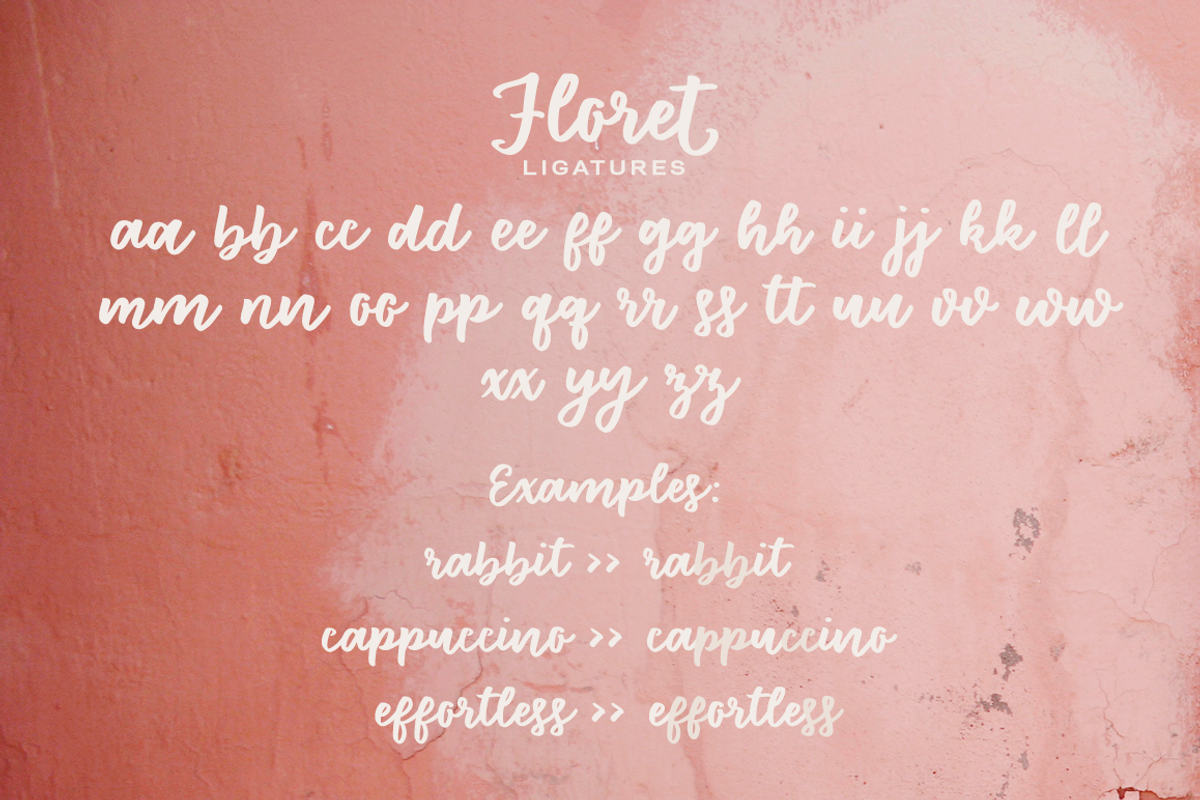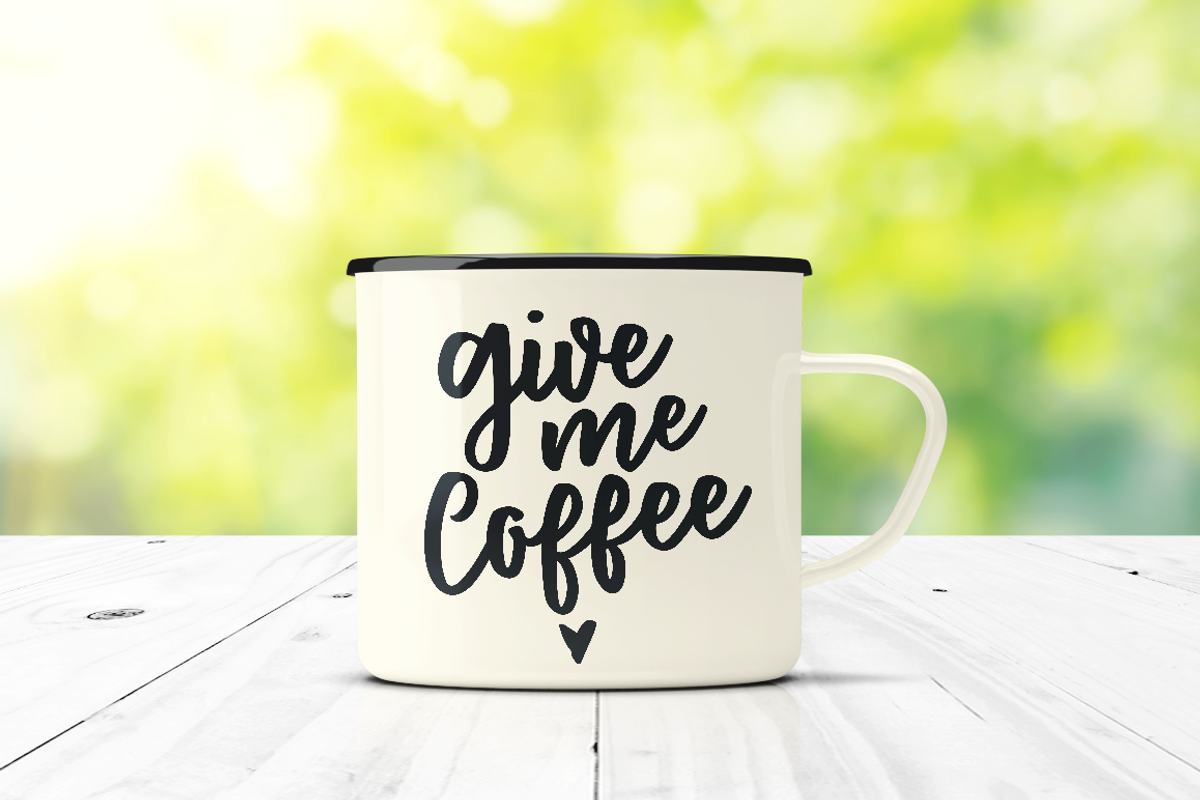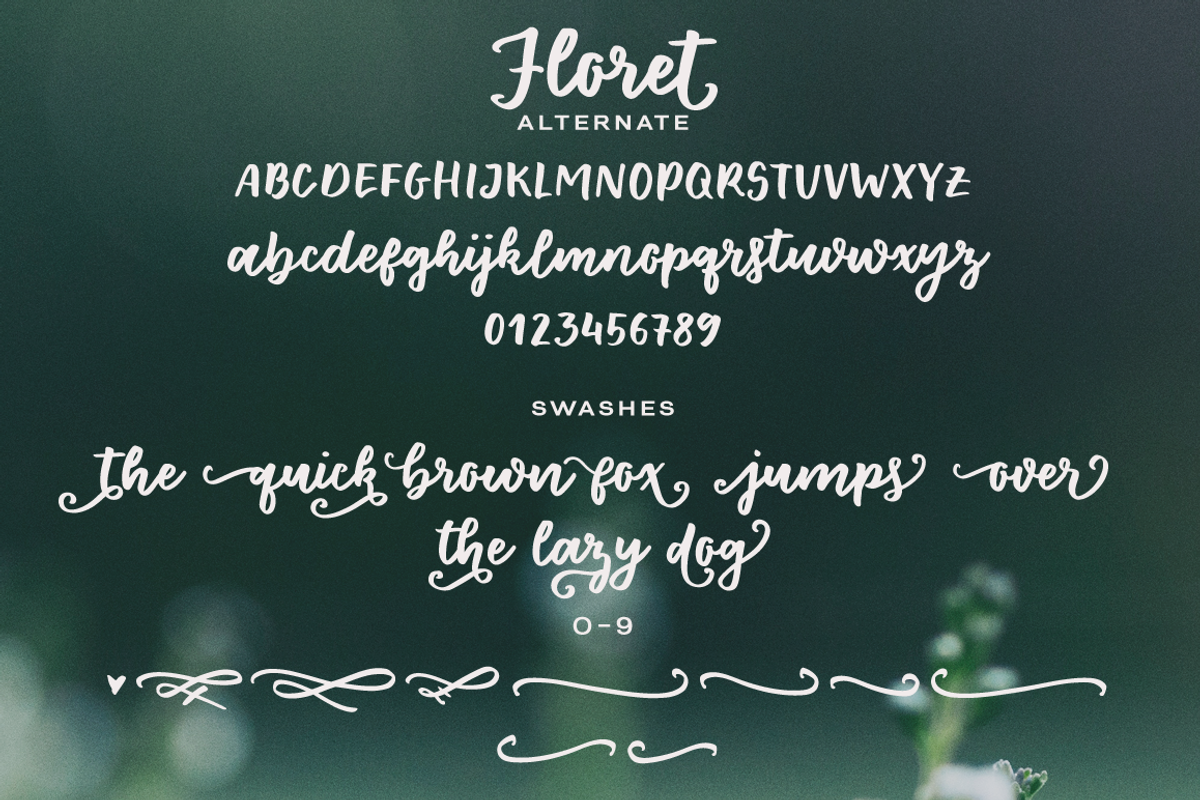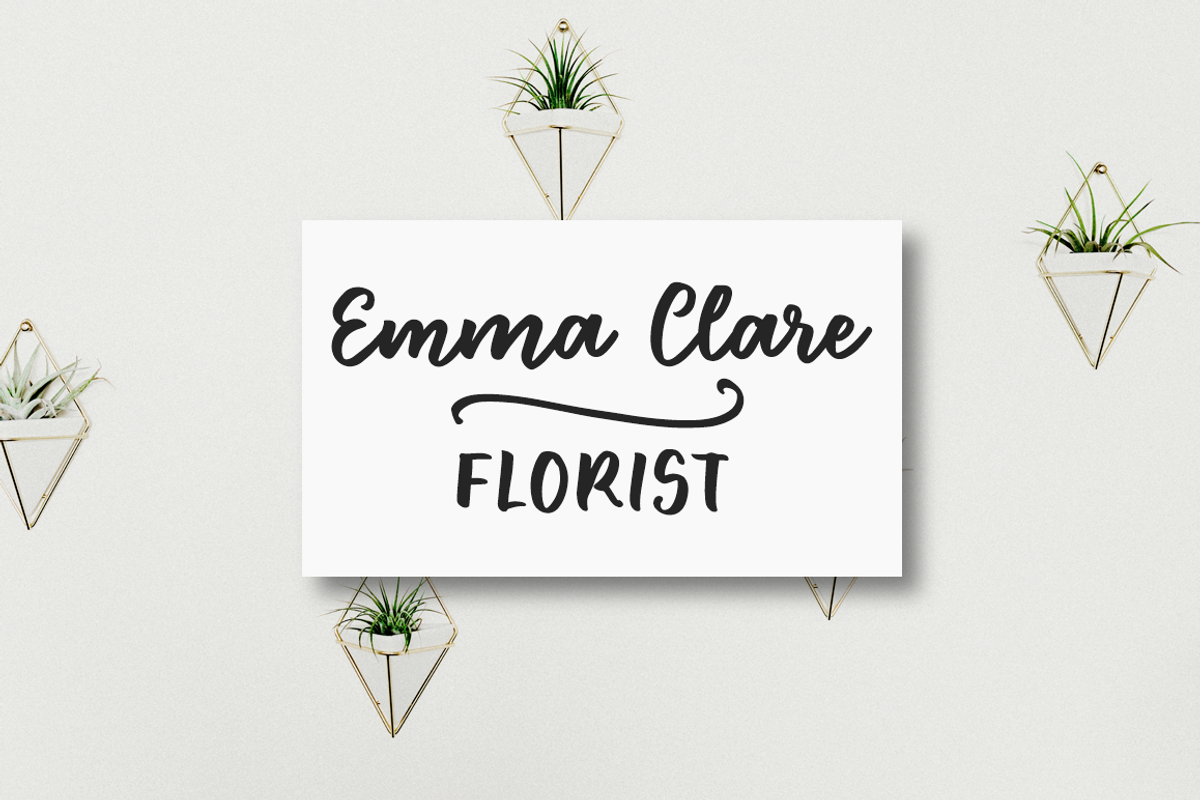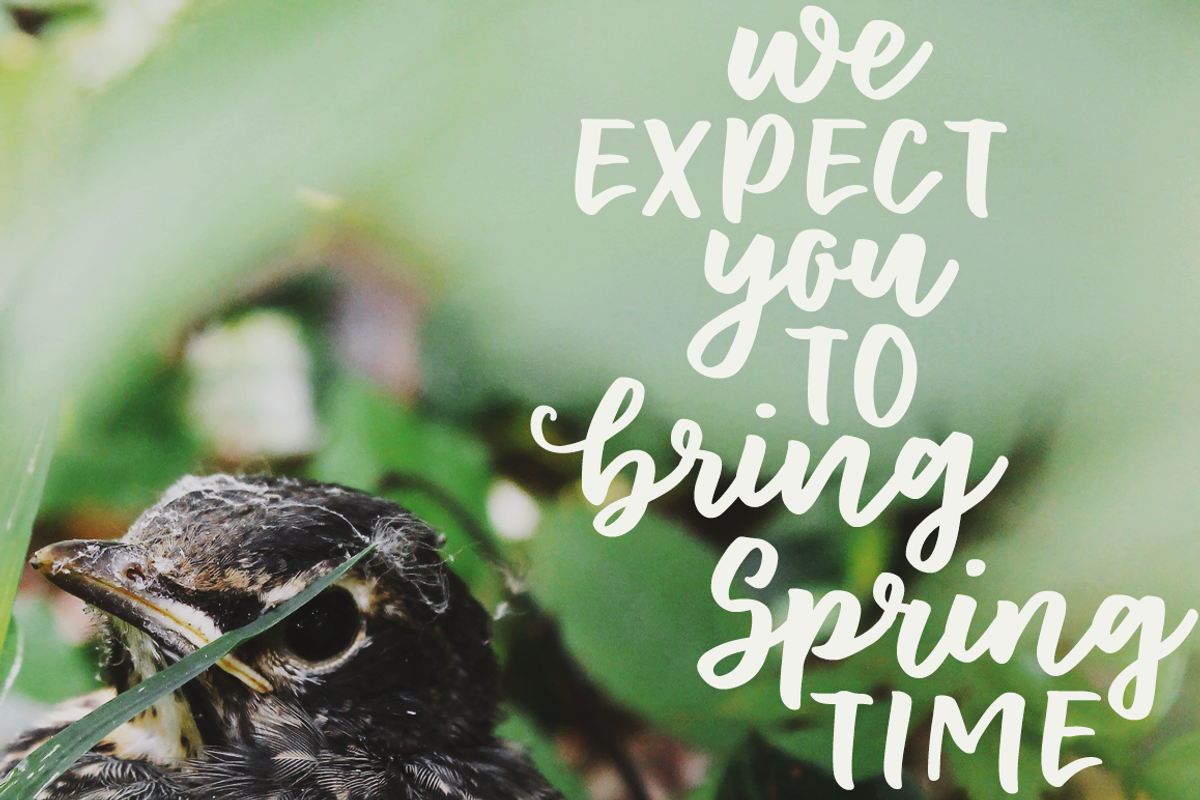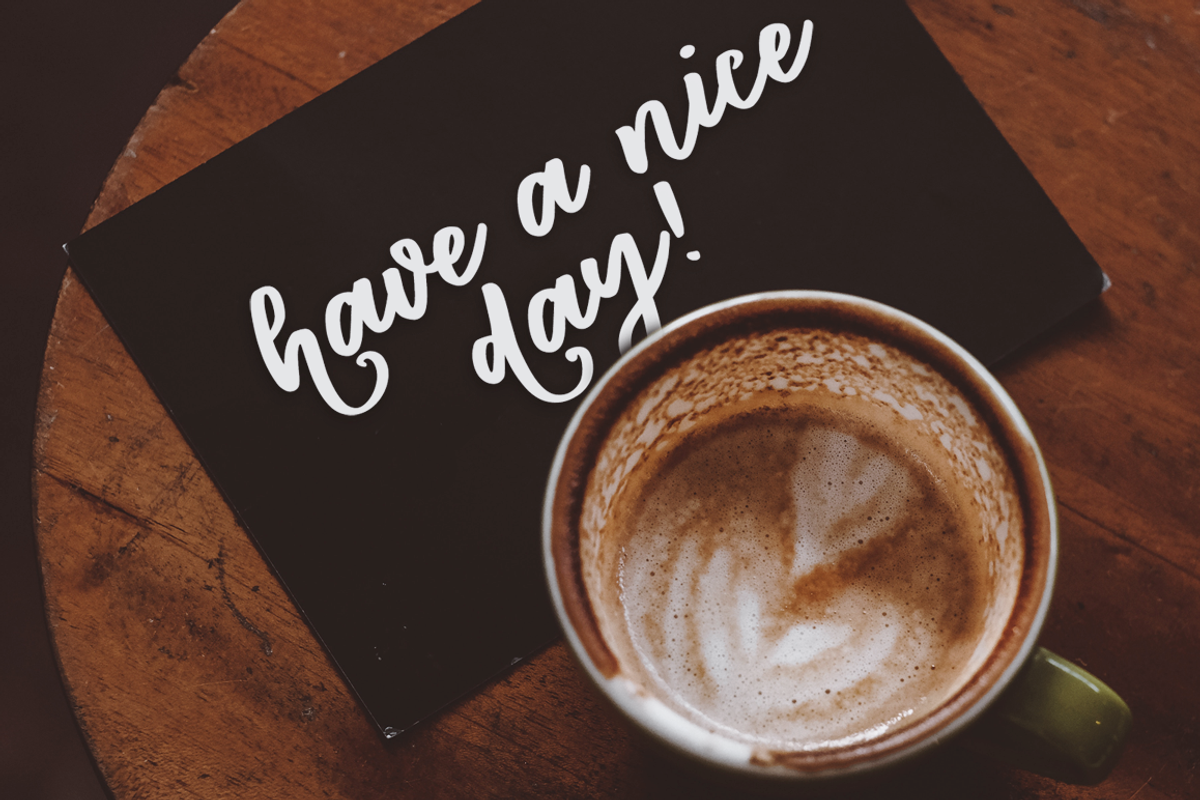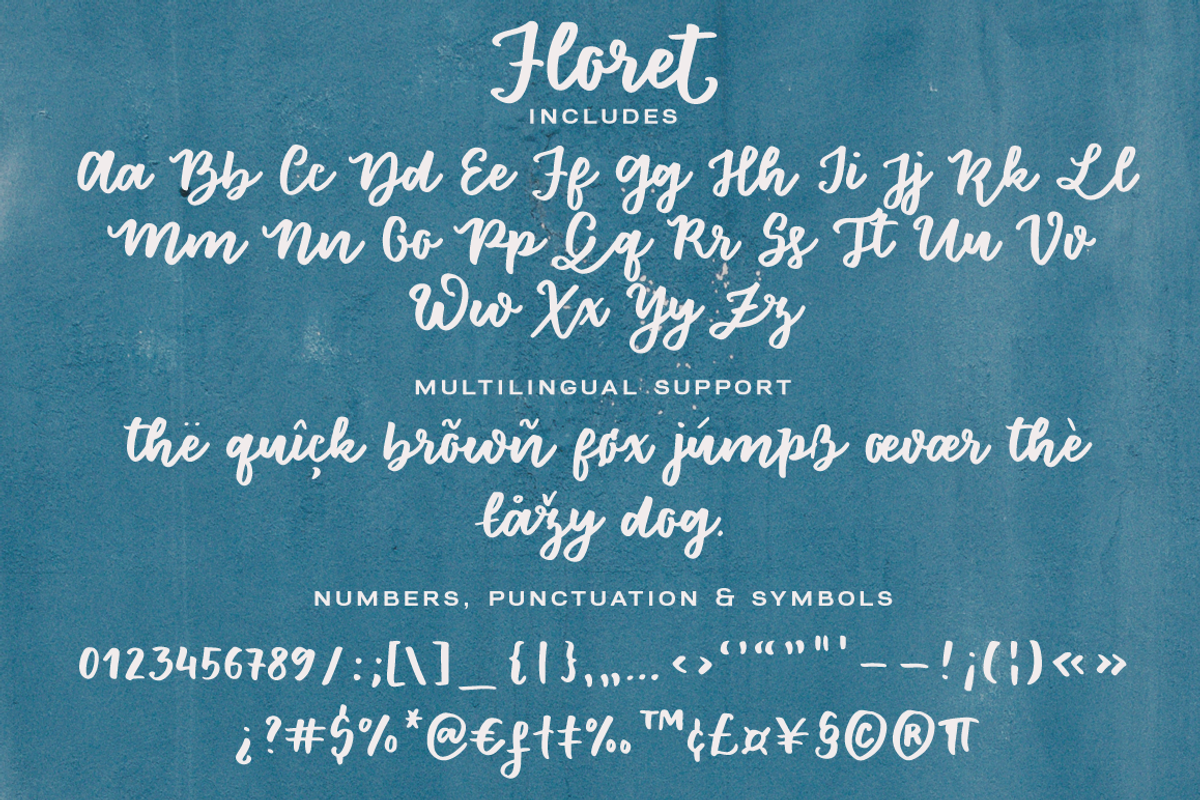
Floret brush font family
Floret is a smooth brush font with tons of extras! It's perfect to make a statement and will look great in social media quotes, branding and logotypes, editorial design, postcards, notes and tags.
This handlettered font includes:
A-Z, a-z, 0-9, accents, punctuation and symbols
A set of alternate caps (that will look great in all caps text) and lower cases (for a more authentic handlettered look)
Two swashes for each lower case letter and 10 matching ornaments perfect to decorate your texts
Ligatures for the double letters
BONUS: a more slanted version of the font, for a more dramatic look